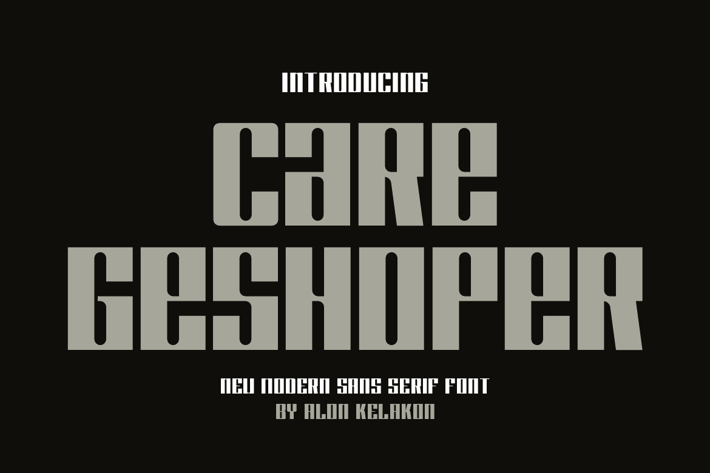
Care Geshoper Font
Care Geshoper Font is unique . Ready to use for your design like labeling, clothing, movie sceen, poster, movie title, gigs, album covers, logos, and much more.